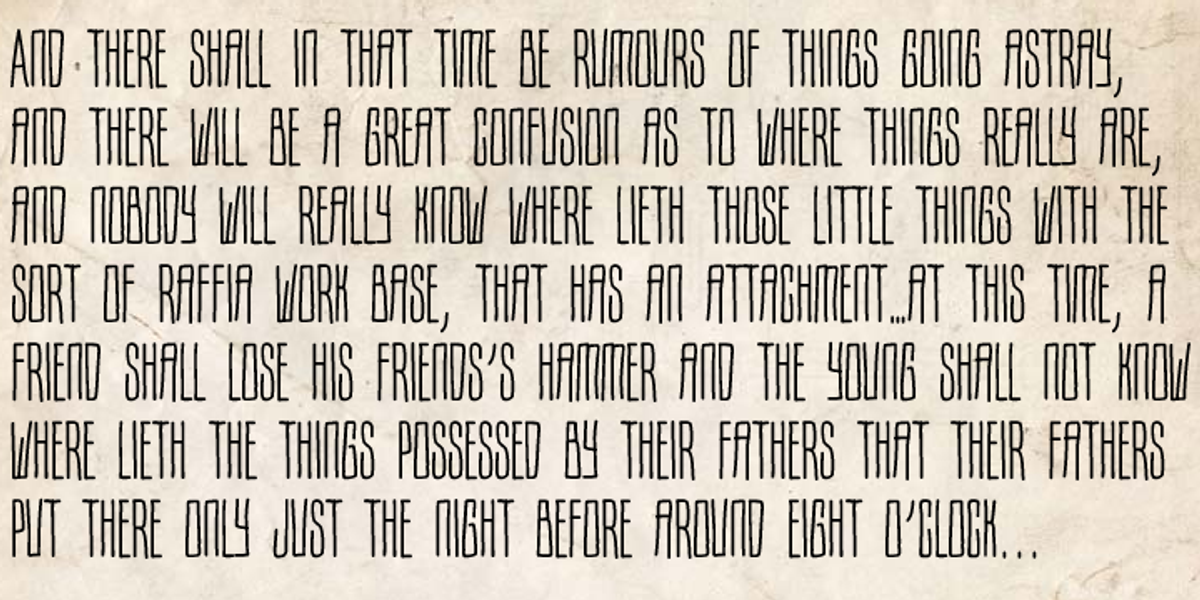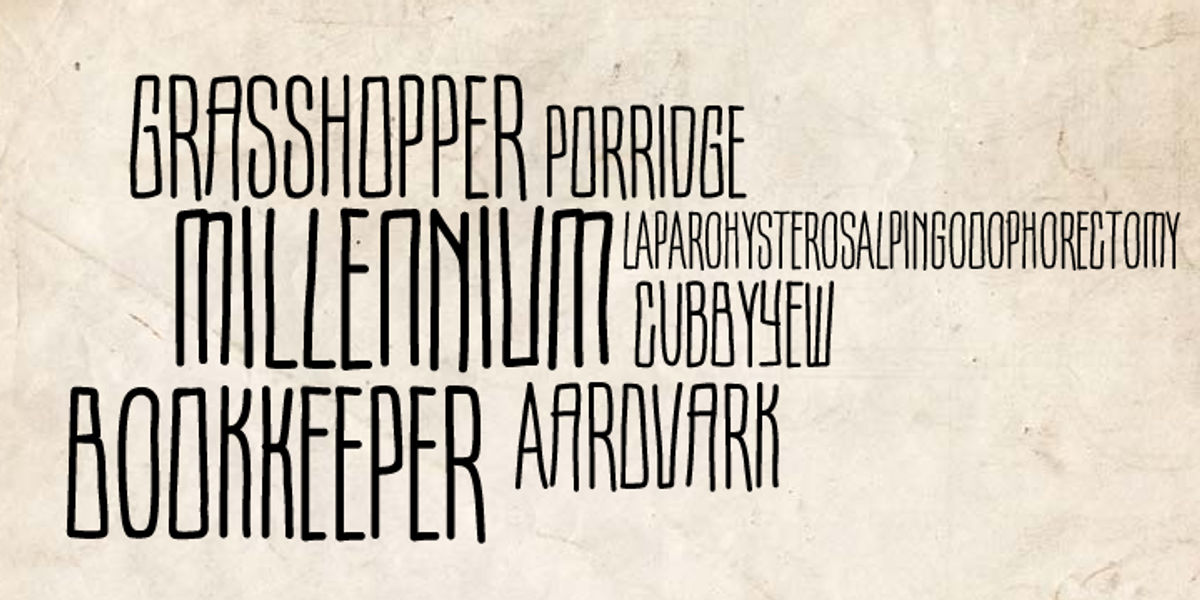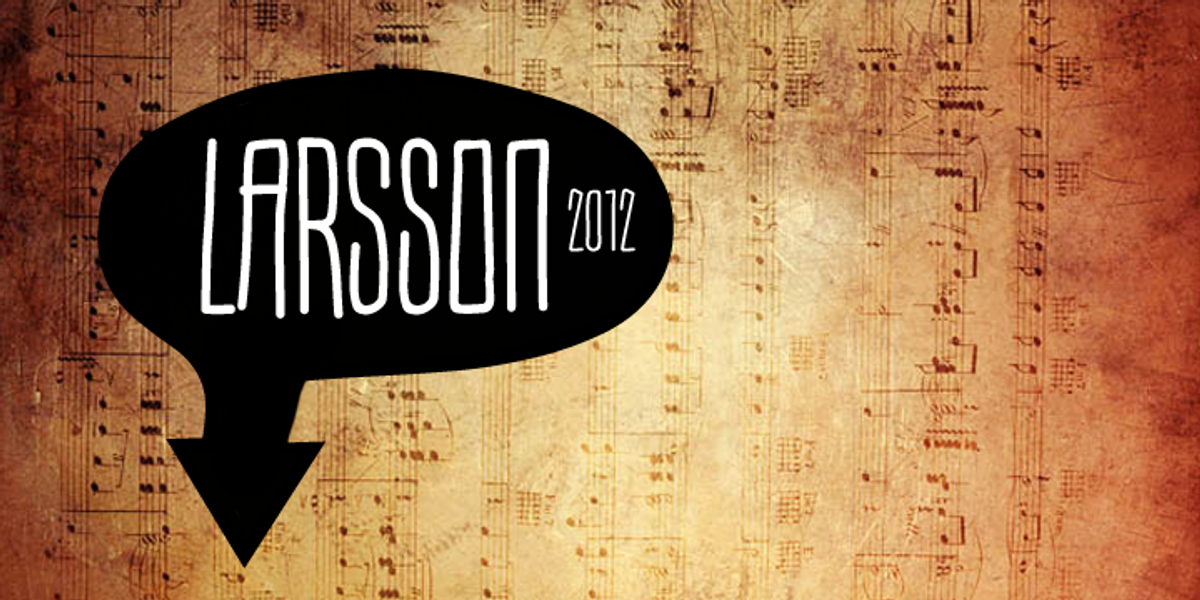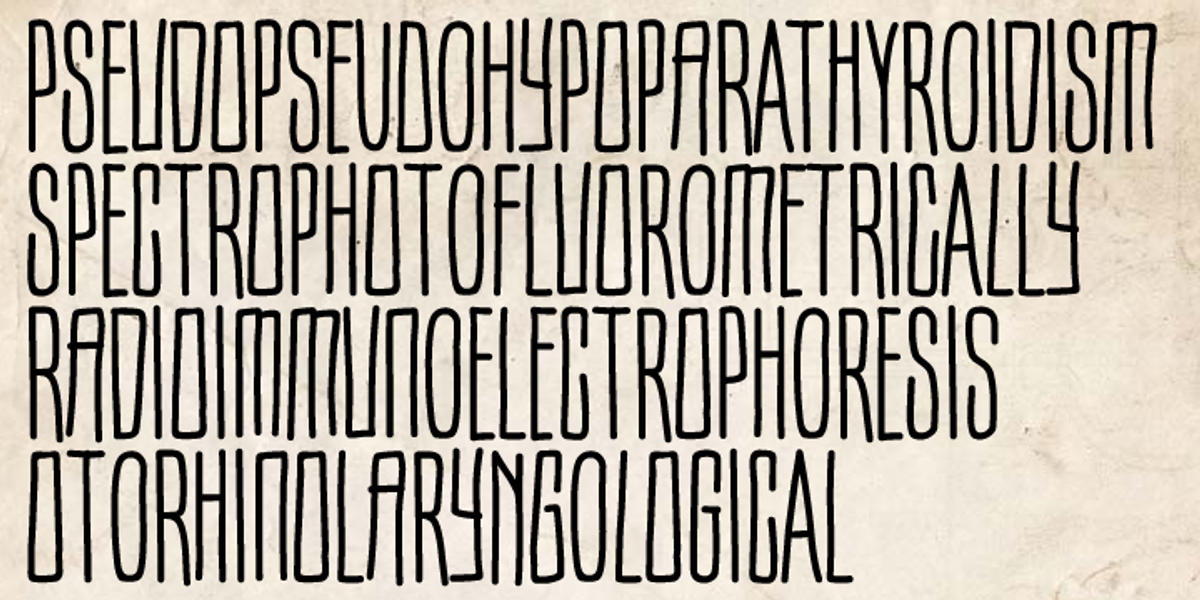
Larsson
Larsson is a unique hand-drawn display font designed by Bartek Nowak. Its all-caps style and ultra-narrow width give it a distinctive look, while the inclusion of two variations for each letter and numerous ligatures adds versatility and personality. This font is well-suited for creative projects such as invitations, greeting cards, posters, advertising, branding materials, and menus.